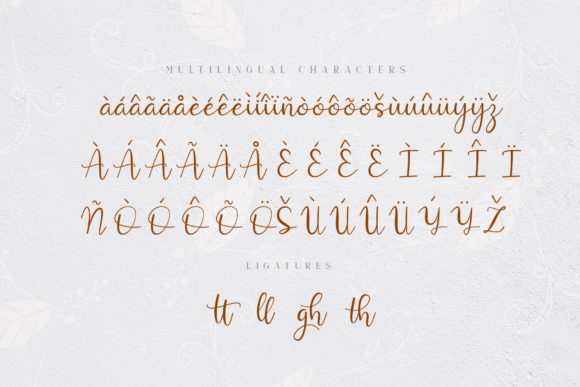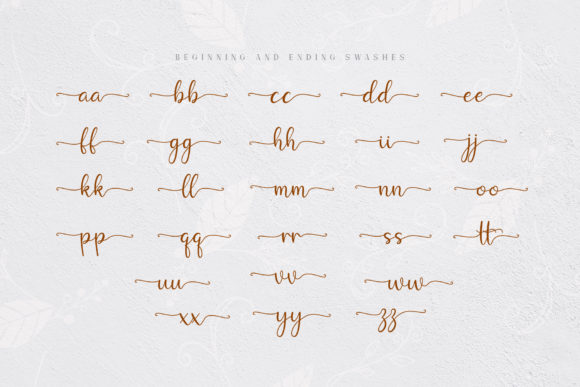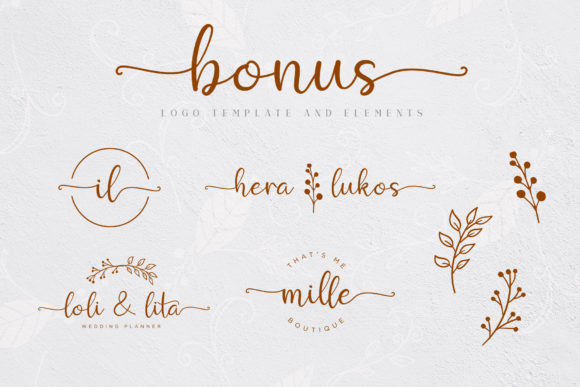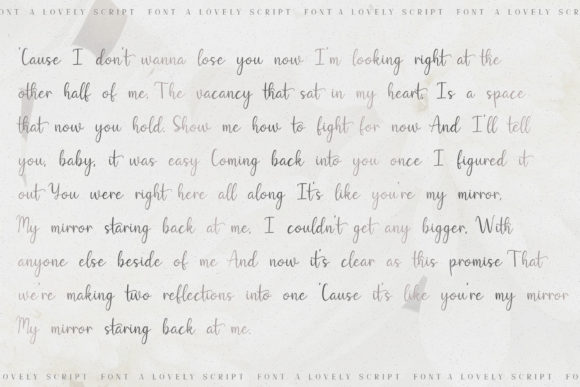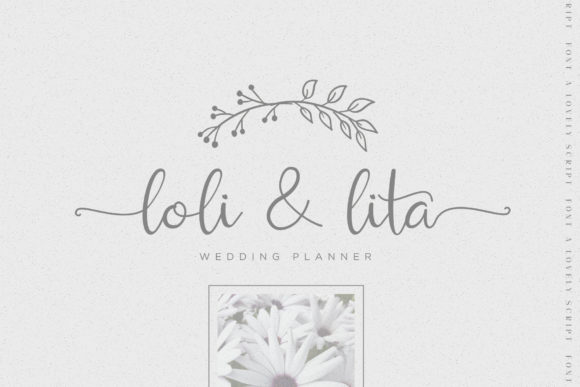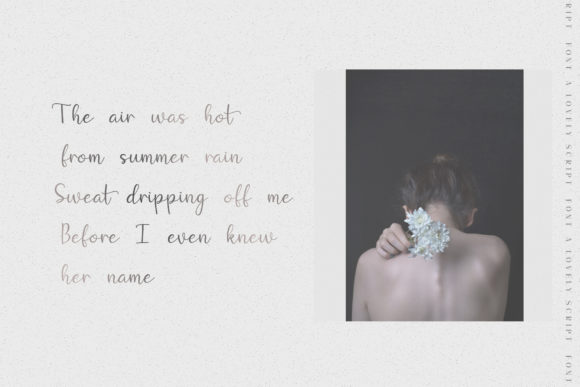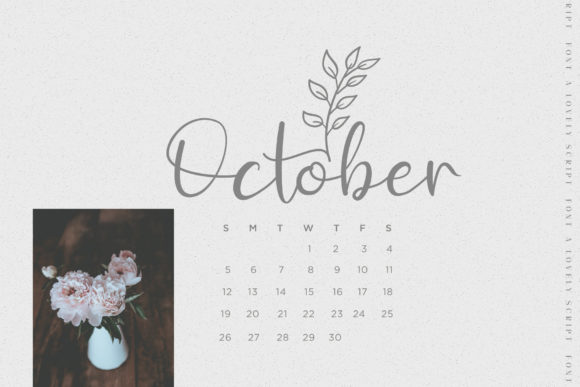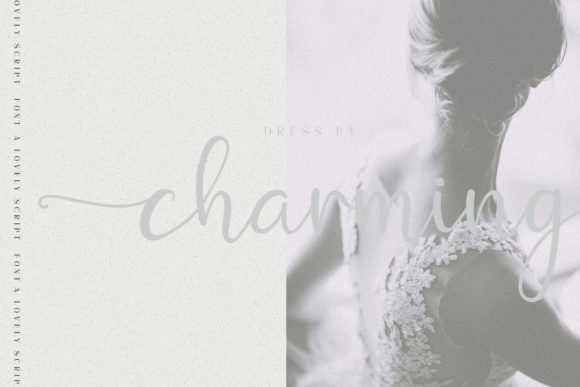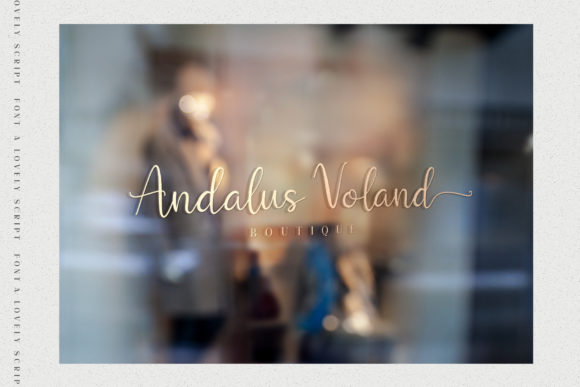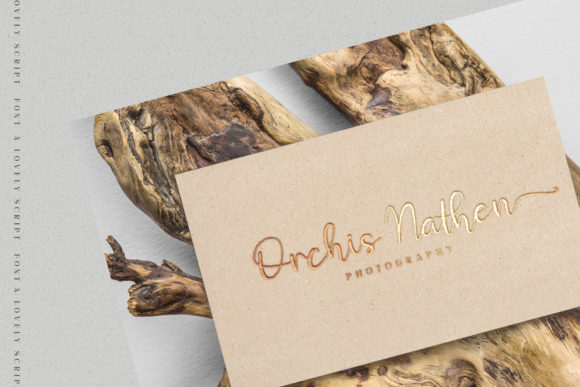
Juttely Font
About Juttely Font
Juttely is an incredibly stunning script font that radiates charm. It will add an authentic spin on any creative endeavor.